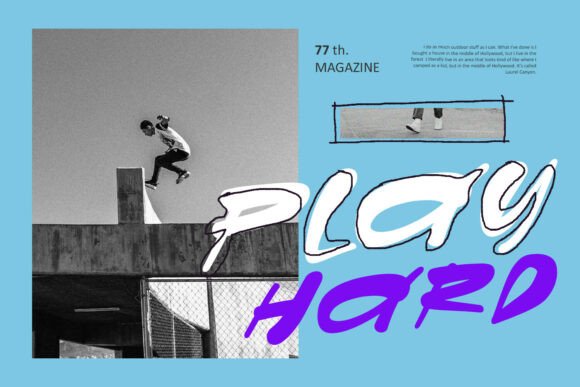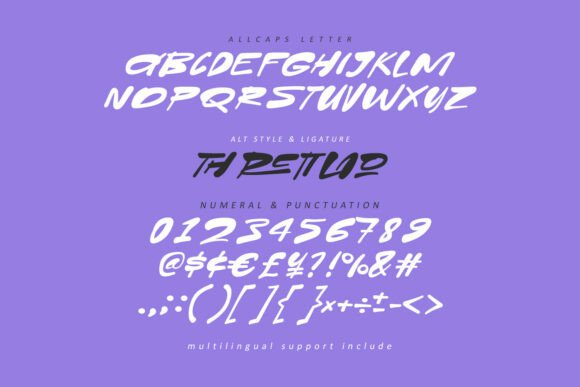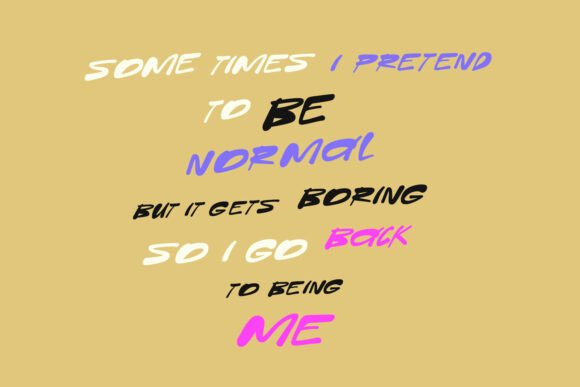
Introduction to Moulatta Brush Font
Give your designs an authentic handcrafted feel.
โMoulatta Handmade Brush Fontโ is perfectly suited to stationery, logos, and much more Include alternative characters and ligature characters.
Key Features of Moulatta Brush Font